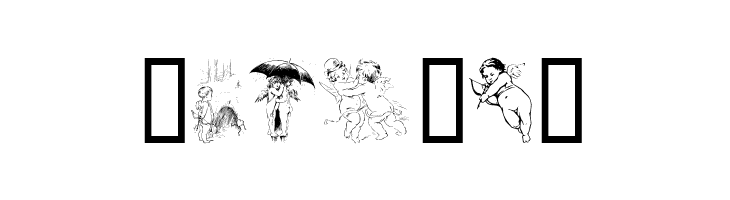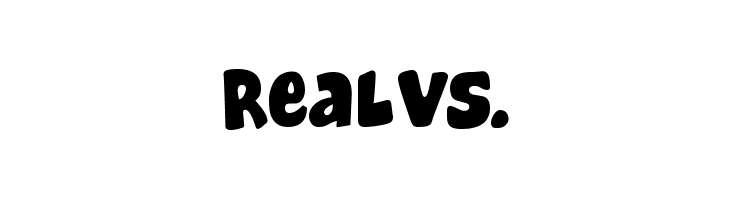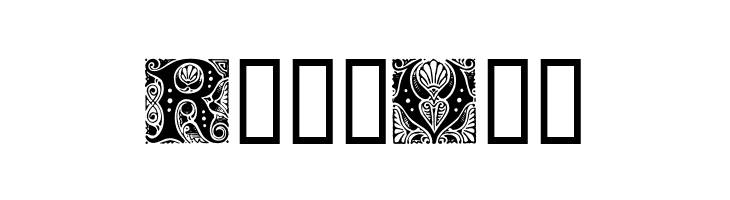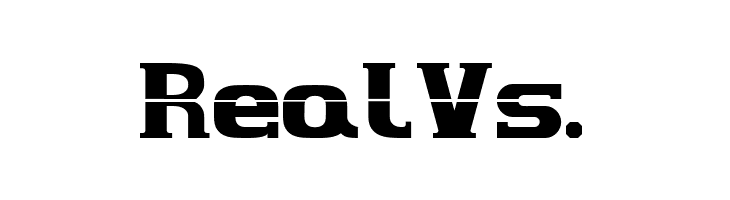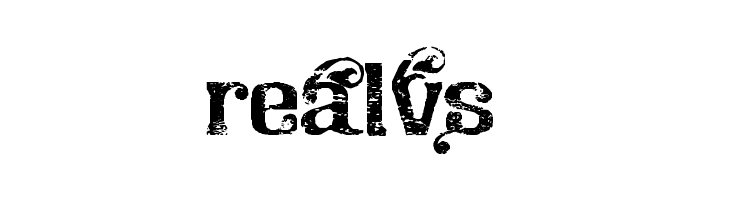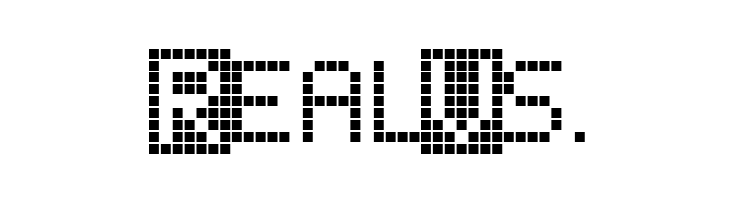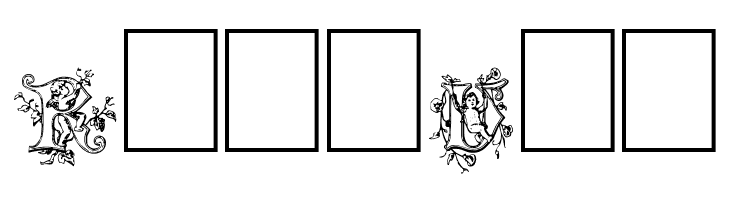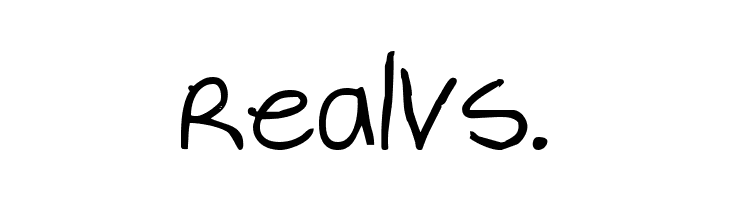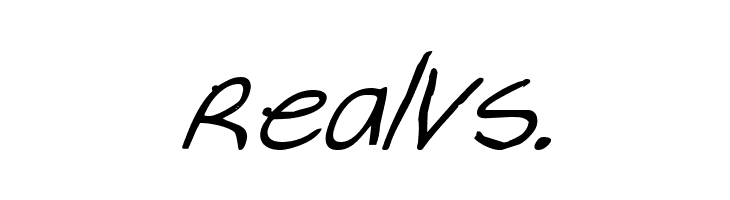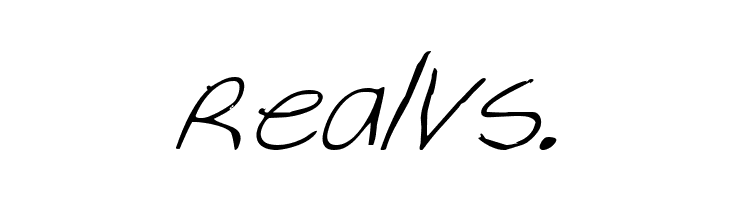
A playful, cheese-inspired font with bold, irregular outlines and cutouts.
A pixelated, retro-style font inspired by early digital displays.
A playful, bold font with thick, rounded characters and a hand-drawn feel.
A classic serif font with modern elegance and unique character flourishes.
A modern, geometric sans-serif font with scientific symbols and arrows.
A playful, bold font with quirky, rounded characters and whimsical special symbols.
A playful, bold font with rounded characters and heart motifs.
A bold, high-contrast font with geometric and modern elements.
An ornate and decorative script font with bold strokes and intricate flourishes.
A decorative, geometric font with parallel line patterns creating a bold, modern look.
Ornate cherub and angel illustration dingbats.
Ornate, decorative initials with intricate floral and cherubic designs.
An ornate and decorative font with floral and vine motifs, ideal for historical themes.
A playful, casual handwritten font with smooth, flowing strokes.
A playful, handwritten font with bold, organic strokes and a casual feel.
A playful, casual handwritten font with uneven strokes and an organic flow.
An ornate and decorative font with intricate patterns and swirls.
A modern, bold set of chess-inspired symbols with clean lines and geometric shapes.
A playful, bold font with rounded, bubble-like characters enclosed in shapes.
A casual, handwritten font with a playful and organic feel.
A bold, handwritten font with a casual and playful style.
A bold, italicized handwritten font with dynamic and expressive strokes.
A dynamic, handwritten italic font with a casual, fluid style.
A bold, geometric font with Art Deco influences, ideal for striking designs.
A bold, geometric font with Art Deco influences, ideal for modern and retro designs.
A decorative serif font with a distressed, artistic flair.
A bold, distressed font with ornate, vintage embellishments.